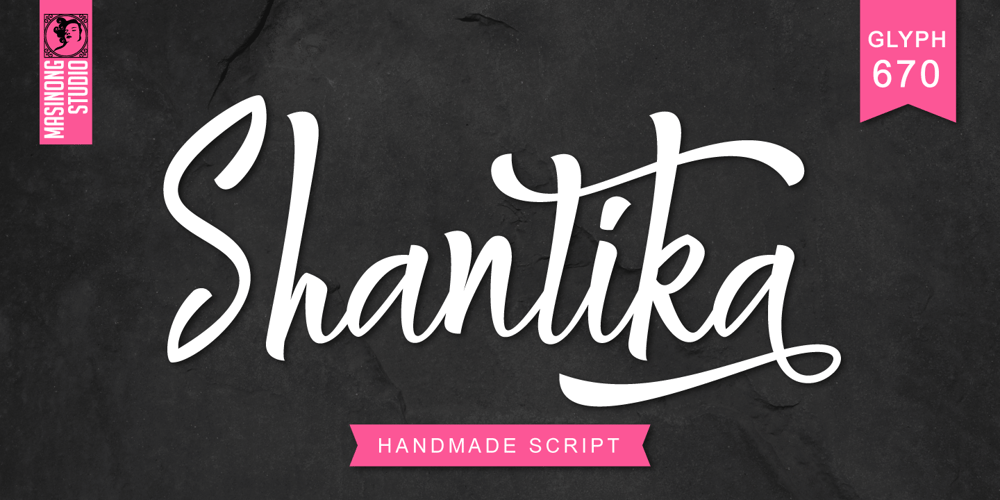
Shantika Script Font Family was designed by Fajriadi and published by Masinong Studio. Shantika Script contains 1 styles and family package options. Shantika Script is inspired by a retro and hand lettering style and features a very bouncy baseline. This font is ideal for logos, handwritten quotes, product packaging, headers, posters, merchandise, social media, greeting cards and more.